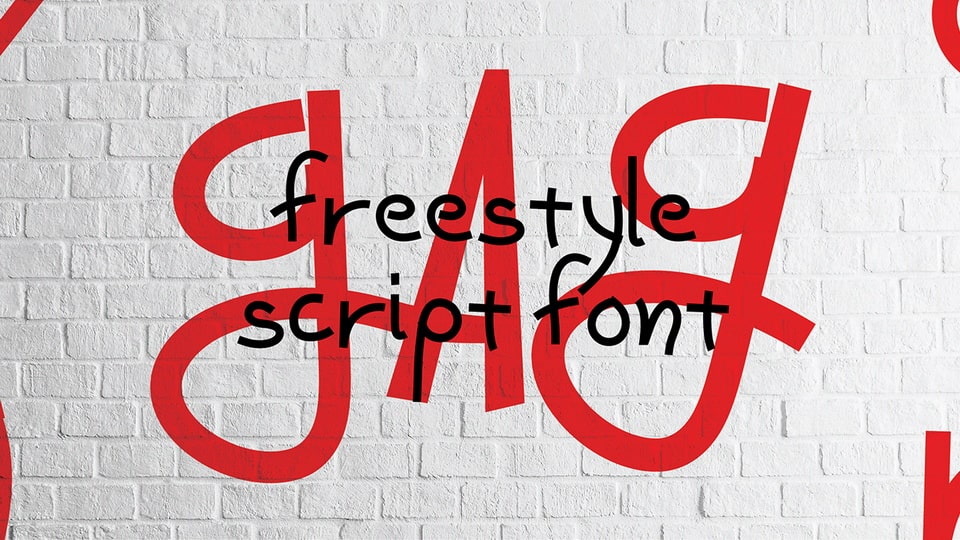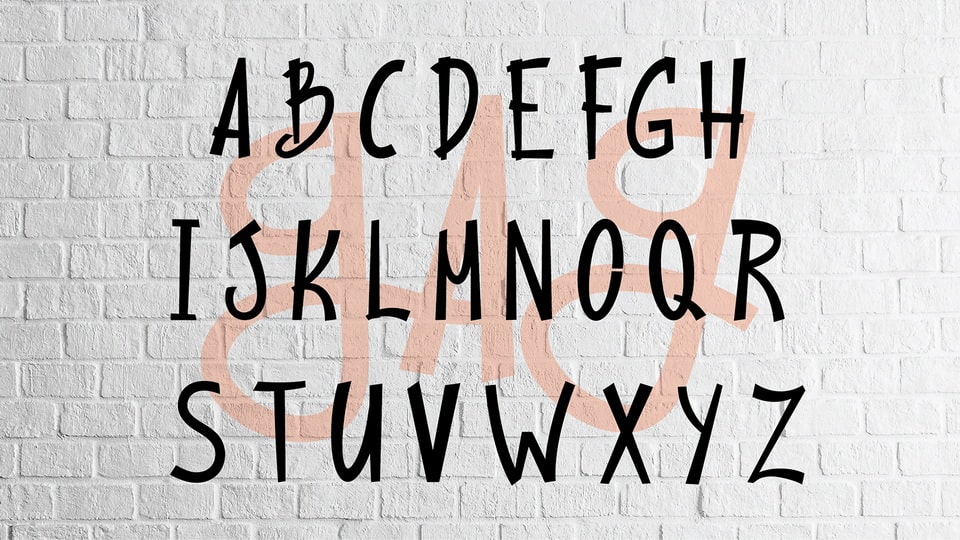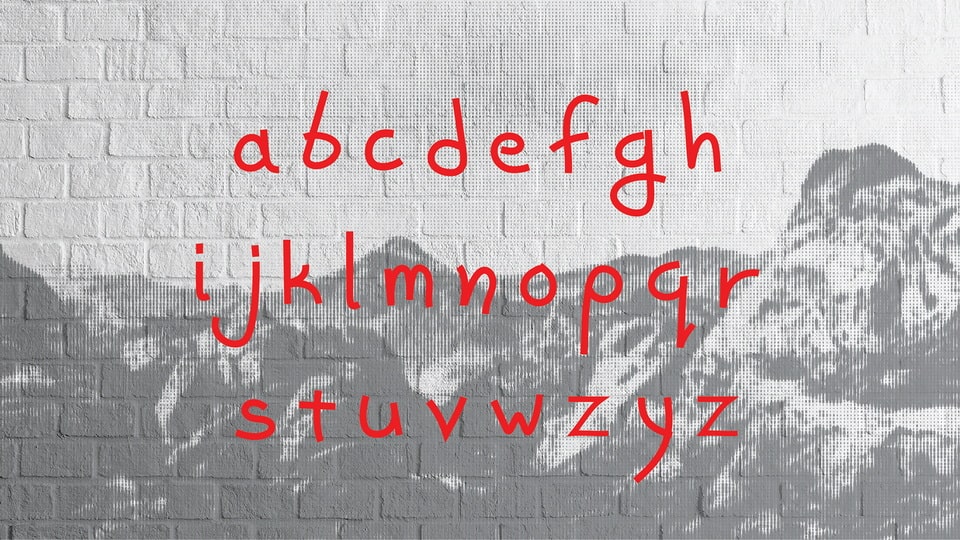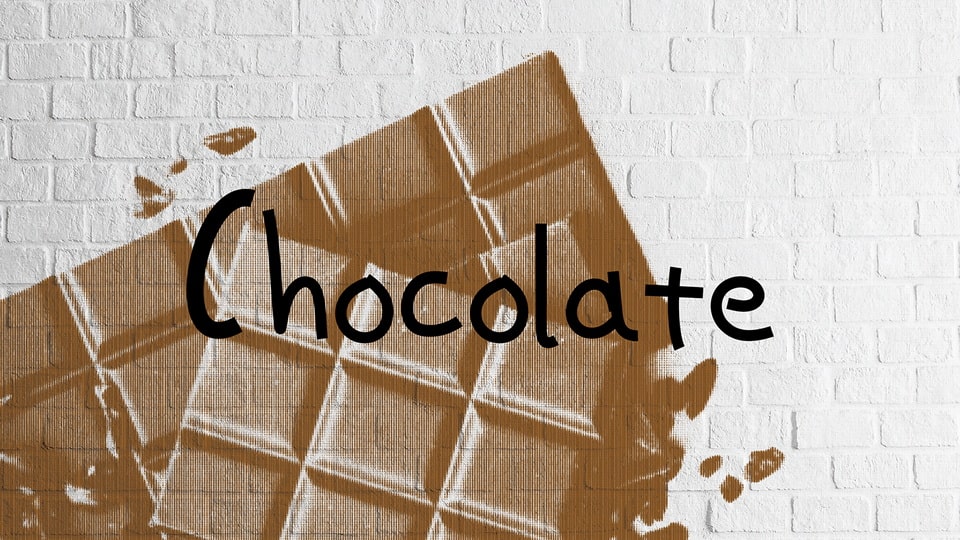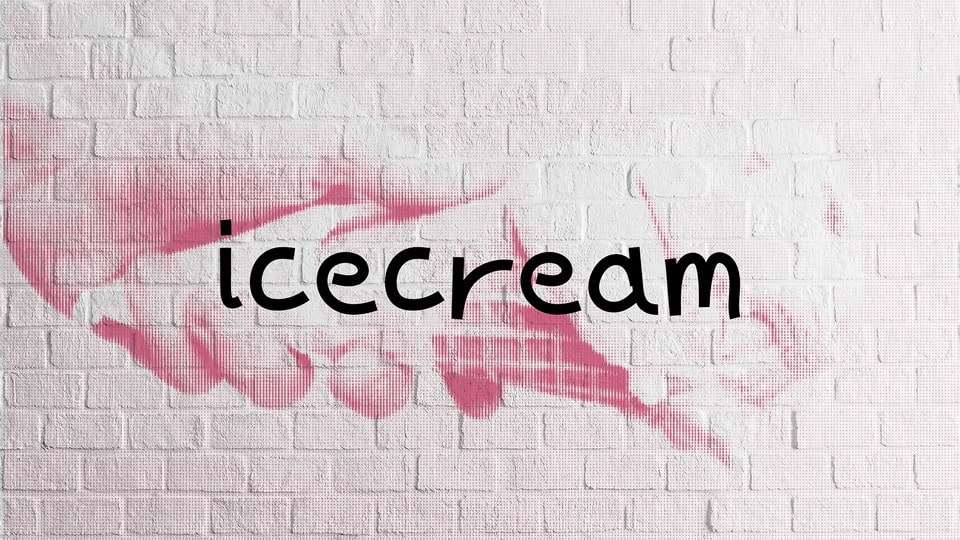
Gag is a playful and freestyle hand-drawn script font that brings a whimsical and carefree spirit to your designs. The font is crafted with spontaneous strokes, making this font a perfect choice for projects that demand a touch of genuine, hand crafted charm. The delightful irregularities and whimsical details add character, ensuring that each letter is a unique expression of creativity.
Perfect for greeting cards, invitations, and any project that calls for a lighthearted touch, Gag font transforms your text into a visual celebration of doodle-inspired joy. The font captures the essence of a carefree scribble, making it suitable for a myriad of creative applications where a dose of genuine, handcrafted playfulness is desired.